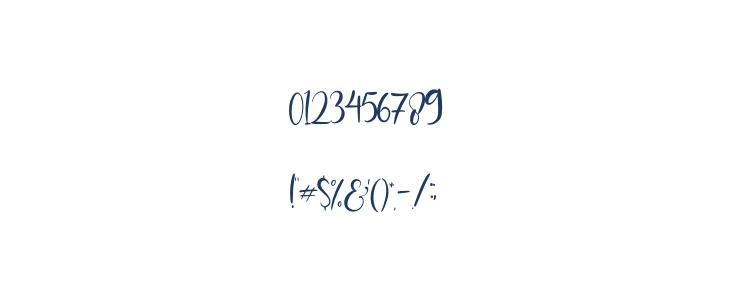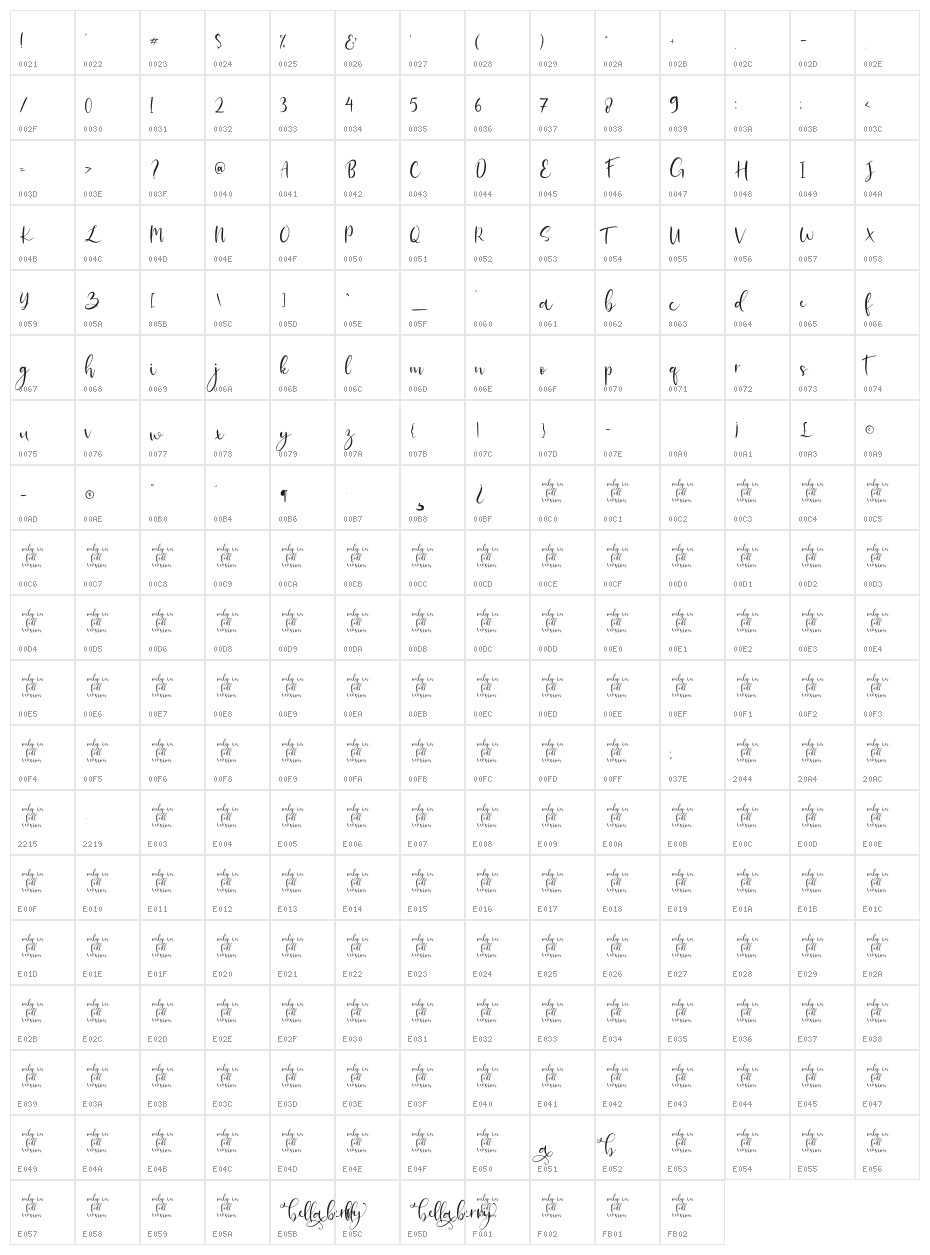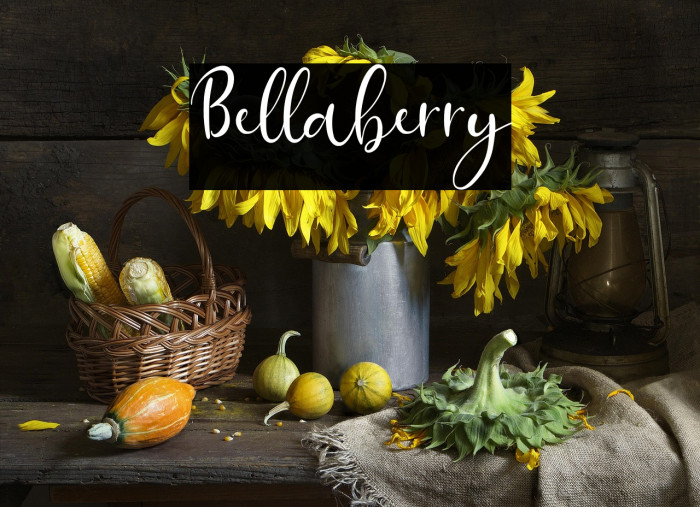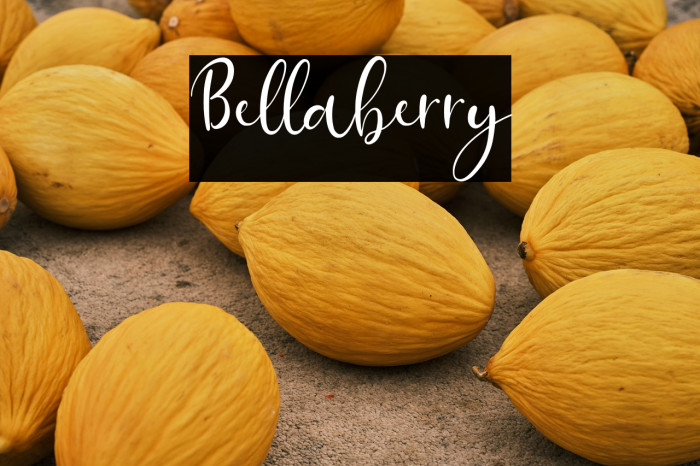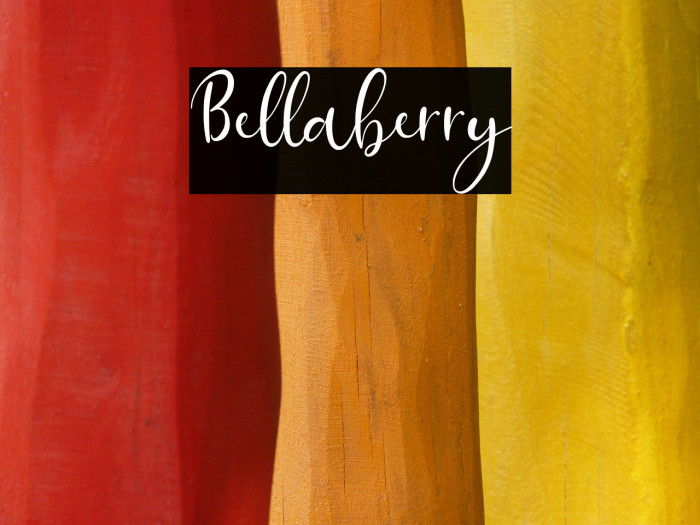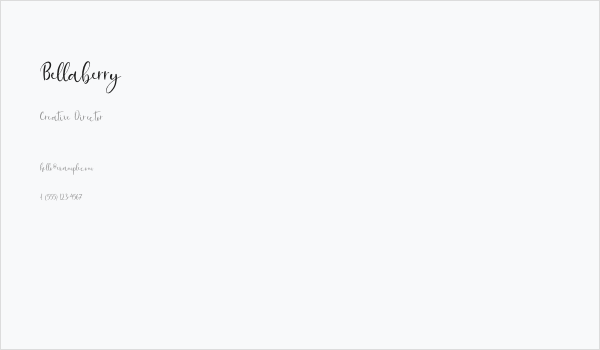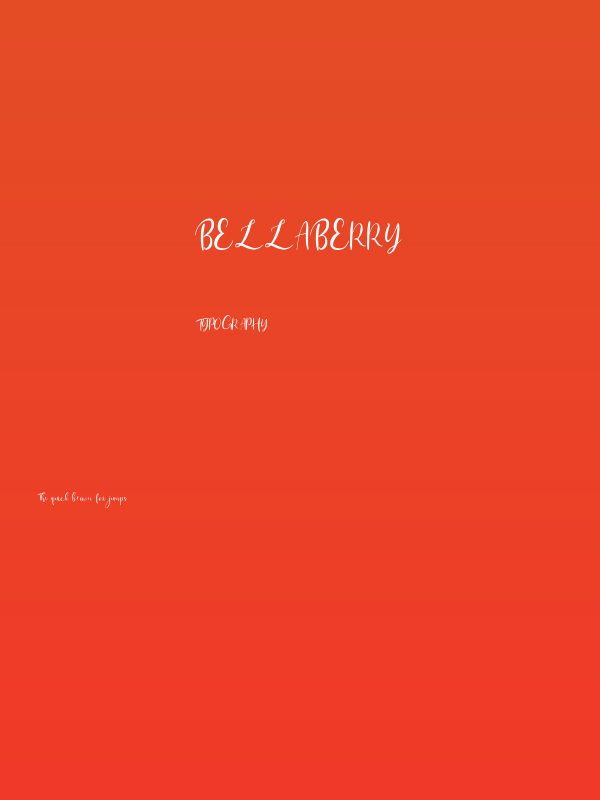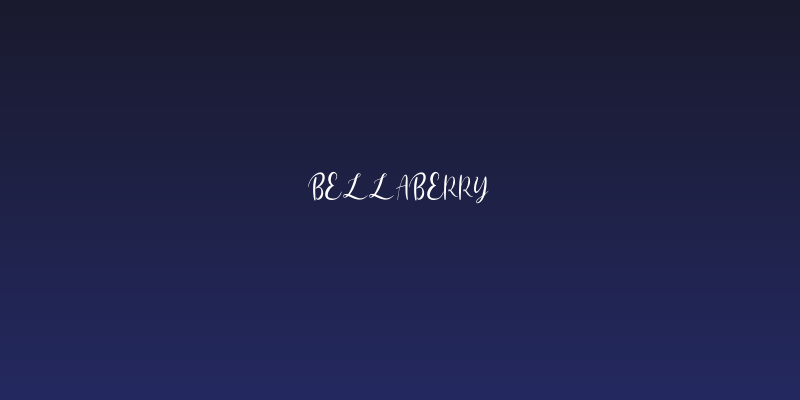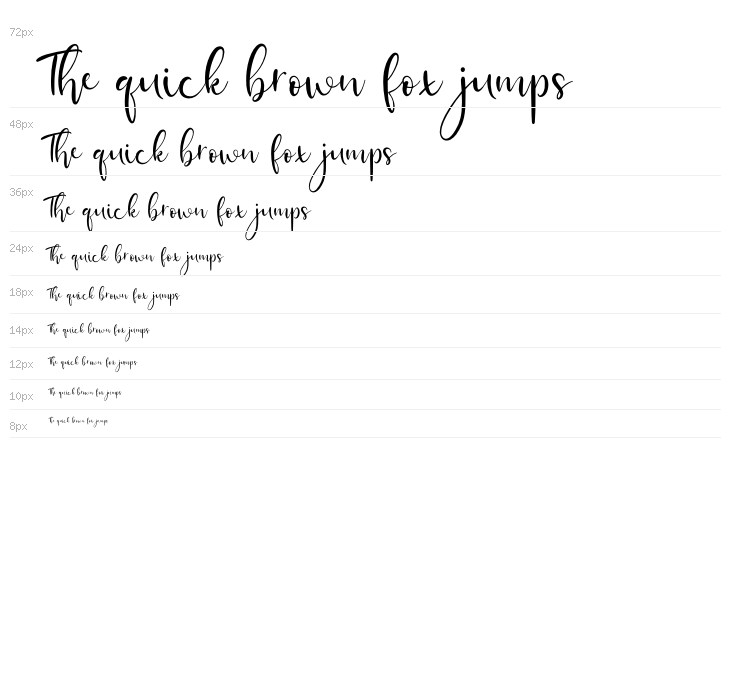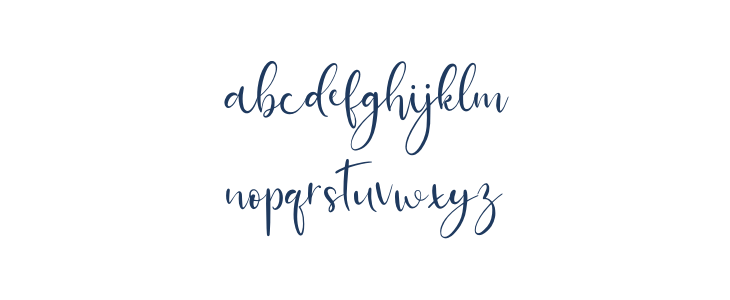
Bellaberry Font
Bellaberry Description
This font features a playful and elegant script style with a hand-drawn appearance. The uppercase letters are bold and expressive, with sweeping curves and flourishes that give them a dynamic feel. The lowercase letters maintain a consistent flow, with some characters extending below the baseline, adding to the font's whimsical nature. The numerals are distinct and maintain the same playful style, making them easily recognizable. Special characters are creatively designed, fitting seamlessly with the overall aesthetic. This font's unique style makes it suitable for projects that require a personal touch.